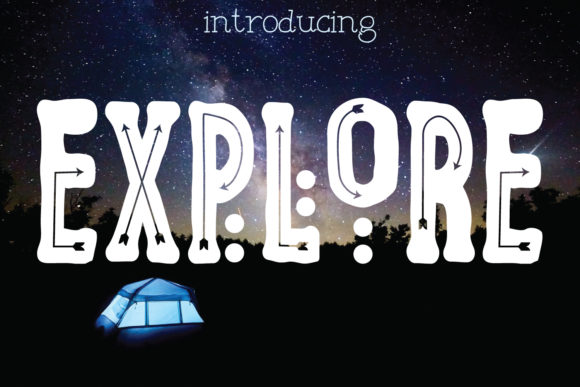
Explore Font: Elevate Your Designs with Unique Decorative Arrows
The Explore font is a game-changer in the world of typography, offering a distinctive and eye-catching way to make your designs stand out. What sets it apart is the inclusion of decorative arrows in each letter, adding a touch of creativity and flair to any project. Whether you’re working on camping designs, outdoor shirts, mugs, quotes, invitations, or a myriad of other creative endeavors, the Explore font is the perfect choice to infuse your work with uniqueness and personality.
The Uniqueness of Explore Font
- Decorative Arrows: Each letter in the Explore font is accompanied by decorative arrows, making it an instant attention-grabber.
- Versatility: From outdoor and adventure-themed designs to quotes, invitations, and more, this font’s versatility knows no bounds.
- Readability: Despite its decorative nature, the Explore font maintains a high level of readability, ensuring your message is conveyed effectively.
Applications of Explore Font
Camping and Outdoor Designs
For those who love the great outdoors, the Explore font offers a perfect way to capture the essence of adventure. Use it for camping gear logos, outdoor shirts, and promotional materials to evoke a sense of exploration and freedom.
Quotes and Inspirational Content
The decorative arrows in the Explore font add an inspirational touch to quotes and motivational content. Use it to create stunning social media posts, banners, or even book covers that stand out and inspire.
Mugs and Apparel
Personalize mugs, t-shirts, and other apparel with the Explore font for a unique and stylish look. The font’s decorative elements ensure that your designs are not only personalized but also eye-catching.
Invitations and Events
Make your invitations and event announcements memorable with the Explore font. Its unique decorative arrows add a touch of elegance and whimsy, perfect for weddings, birthday parties, and other celebrations.
Why Choose Explore Font?
- Uniqueness: In a sea of standard fonts, the Explore font offers a breath of fresh air with its distinctive decorative arrows.
- Creativity: It unleashes creativity, allowing designers to experiment with various design concepts that stand out.
- Versatility: Its wide range of applications makes it a valuable asset for any designer looking to expand their creative horizons.
- Readability: Despite its ornamental nature, it remains clear and readable, making it practical for various uses.
Tips for Using Explore Font Effectively
- Pair with Simplicity: For maximum impact, pair the Explore font with simpler fonts for body text to maintain readability and highlight key information.
- Experiment with Colors: Take advantage of the decorative arrows to experiment with colors and gradients, adding depth to your designs.
- Consider Size: Ensure that the font size is appropriate for the medium. For instance, larger sizes work well for posters and banners, while smaller sizes are better for mugs and apparel.
- Maintain Consistency: Use the Explore font consistently across your design elements to create a cohesive and professional look.
The Explore font is more than just a typeface; it’s a creative tool that can elevate your designs to new heights. Its unique decorative arrows, versatility, and readability make it an invaluable asset for designers looking to make a statement. Whether you’re creating camping designs, inspirational quotes, personalized apparel, or event invitations, the Explore font offers a distinctive touch that can set your work apart. Embrace the Explore font in your next project and discover the difference it can make.